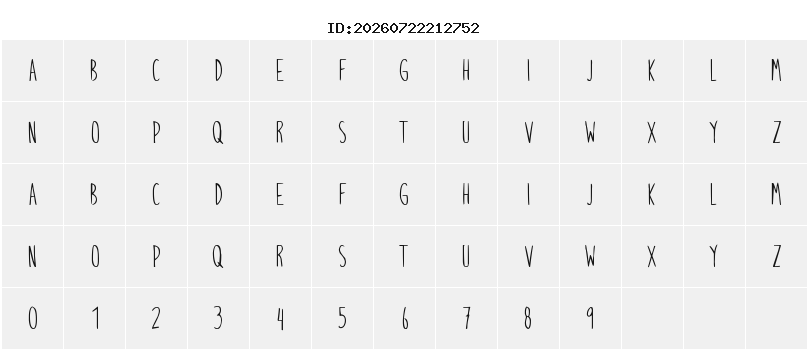
• Font Name: Mr. Mogollon
• Designer: Omar Mogollón
About Mr. Mogollon.ttf
Mr. Mogollon.ttf is a modern, elegant sans-serif font designed for ultimate readability and visual harmony. Perfect for branding, headlines, web design, and print materials.